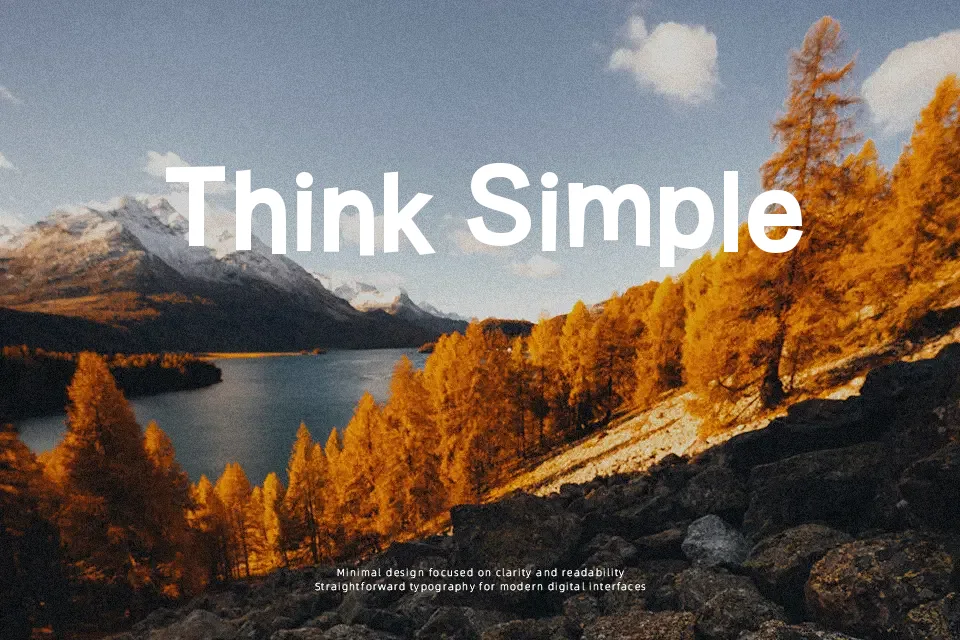
Burvetica NC Font
Designed by Jayvee Enaguas
Burvetica NC pushes thick, uniform strokes and compact proportions into a fun, cartoon-flavored display style that feels informal but still readable at medium sizes. The letters are blocky with rounded details and tight internal shapes, so they hit hard in short words and stacked titles, especially on covers, thumbnails, and banners that need a strong, friendly shout rather than a subtle whisper. Because the weight is heavy and spacing is relatively tight, it works best in short phrases; long paragraphs quickly feel dense and tiring. If you like bold, comic-inspired display faces, this sits somewhere between a chunky sans and a cartoon headline font, but it is less suited to minimalist or highly corporate branding.
playful gaming or streaming logos and wordmarks
cartoon-style poster titles and event flyers
bold YouTube thumbnails and social media banners
kids-oriented packaging or signage needing a loud, friendly tone
long paragraphs or continuous body copy
formal corporate reports or minimalist luxury branding
very small UI labels or caption text where fine detail matters
projects requiring a neutral, highly versatile sans serif system
Perfect for gaming, headline, and logo, with a bold and cartoon style.